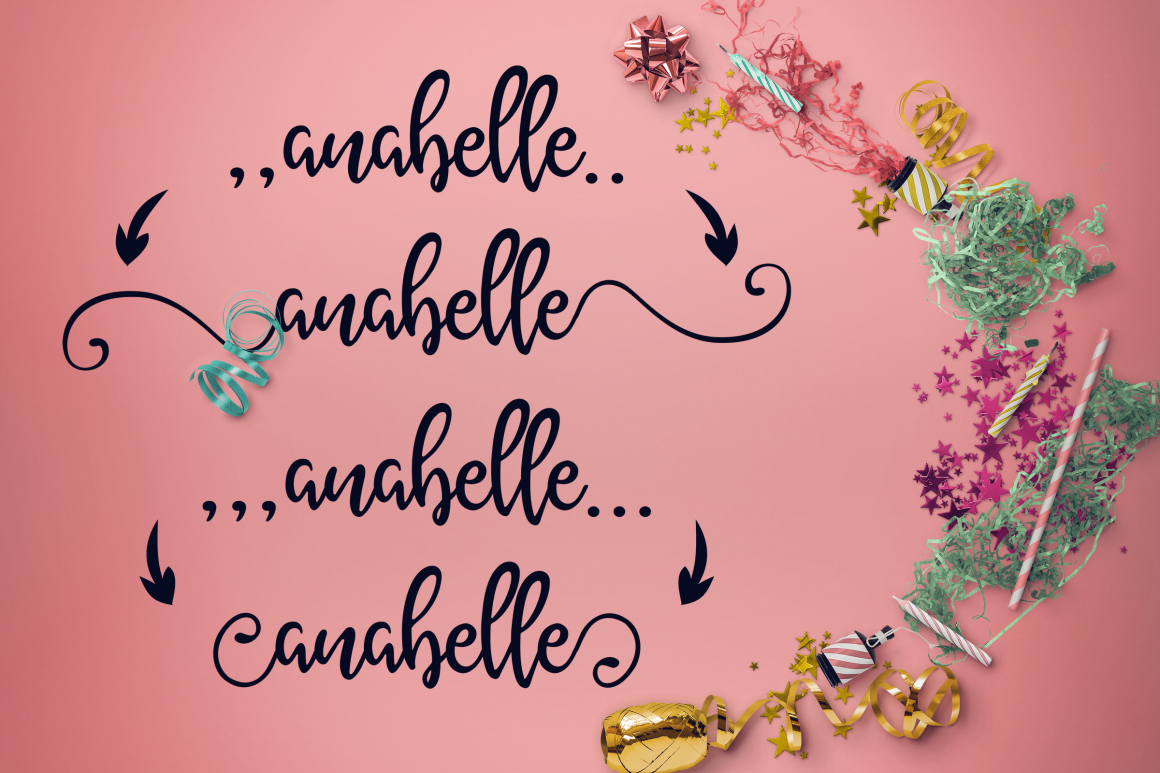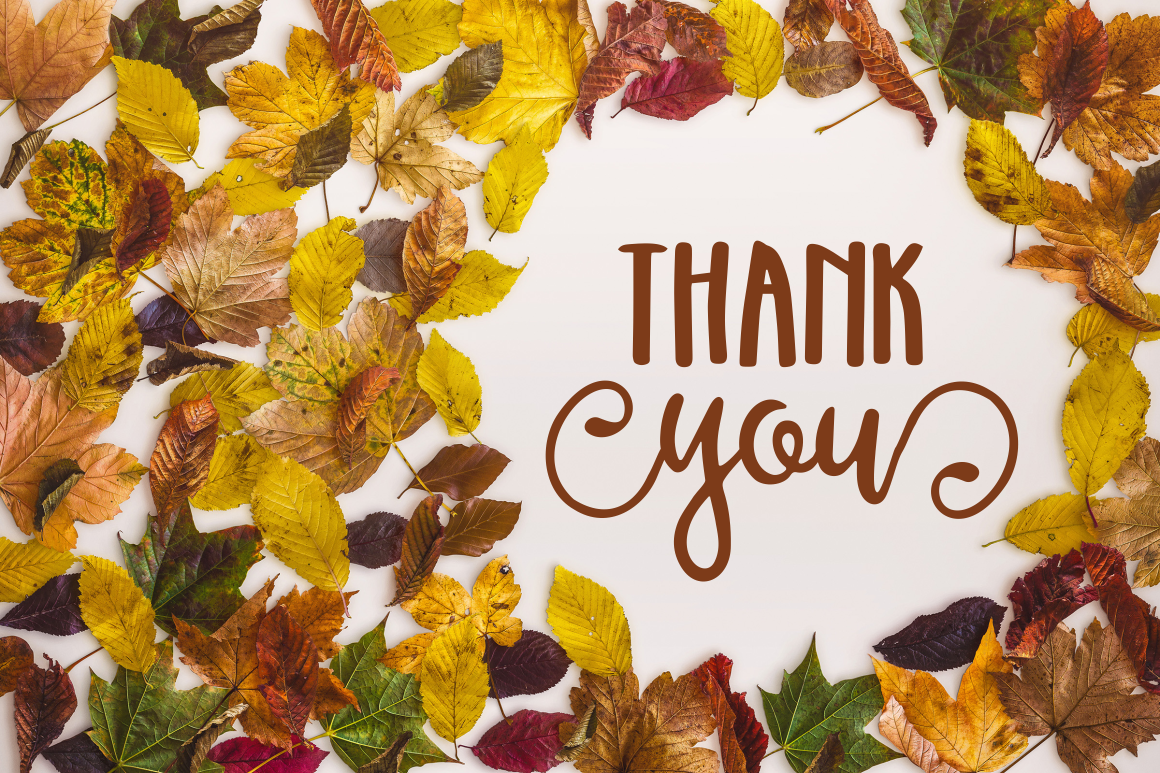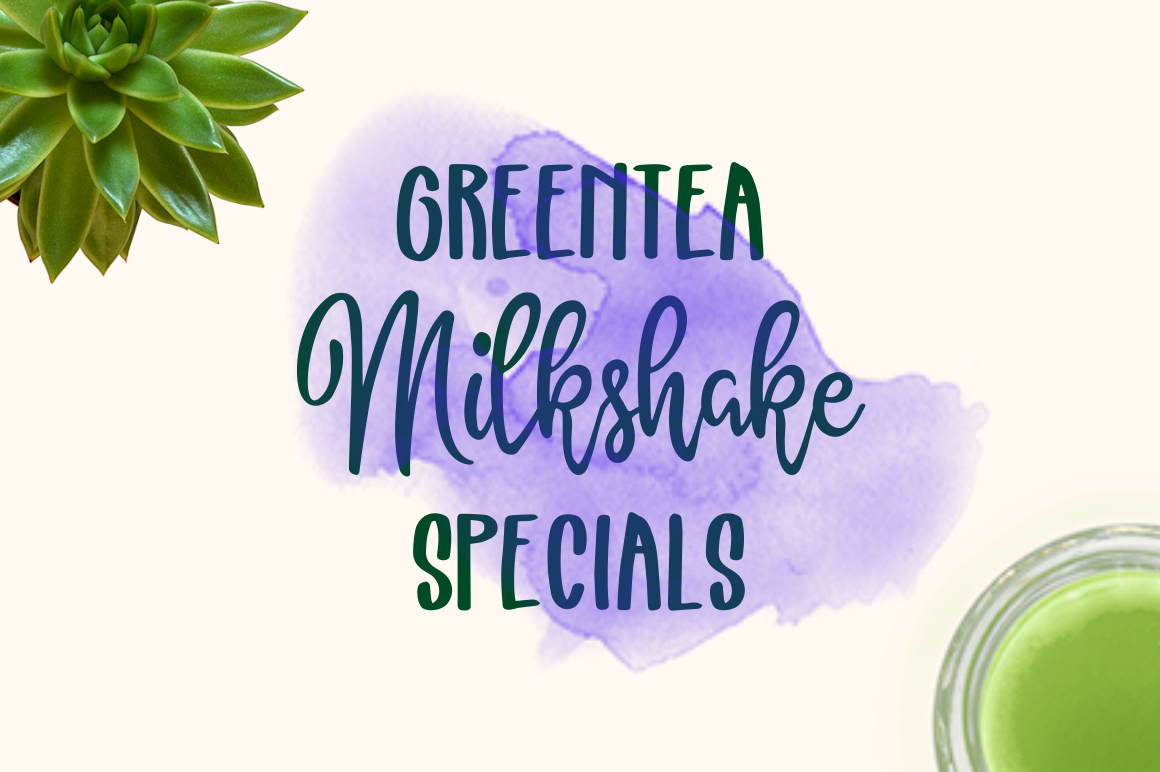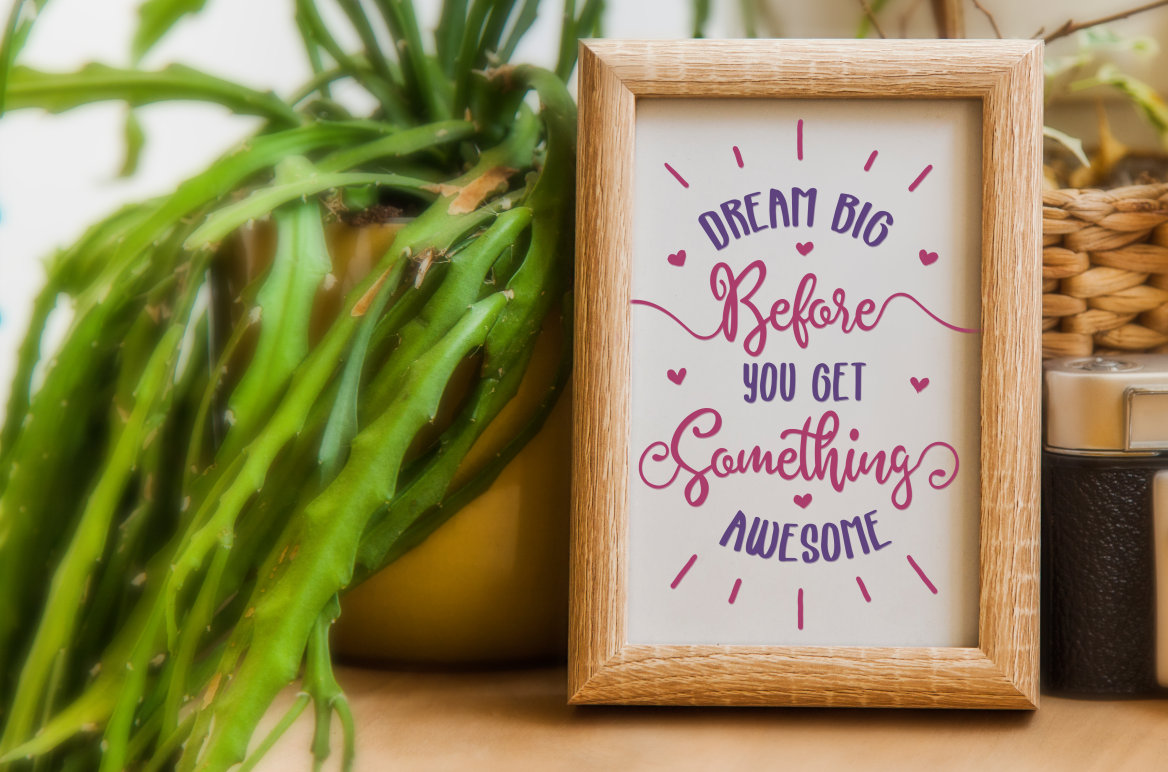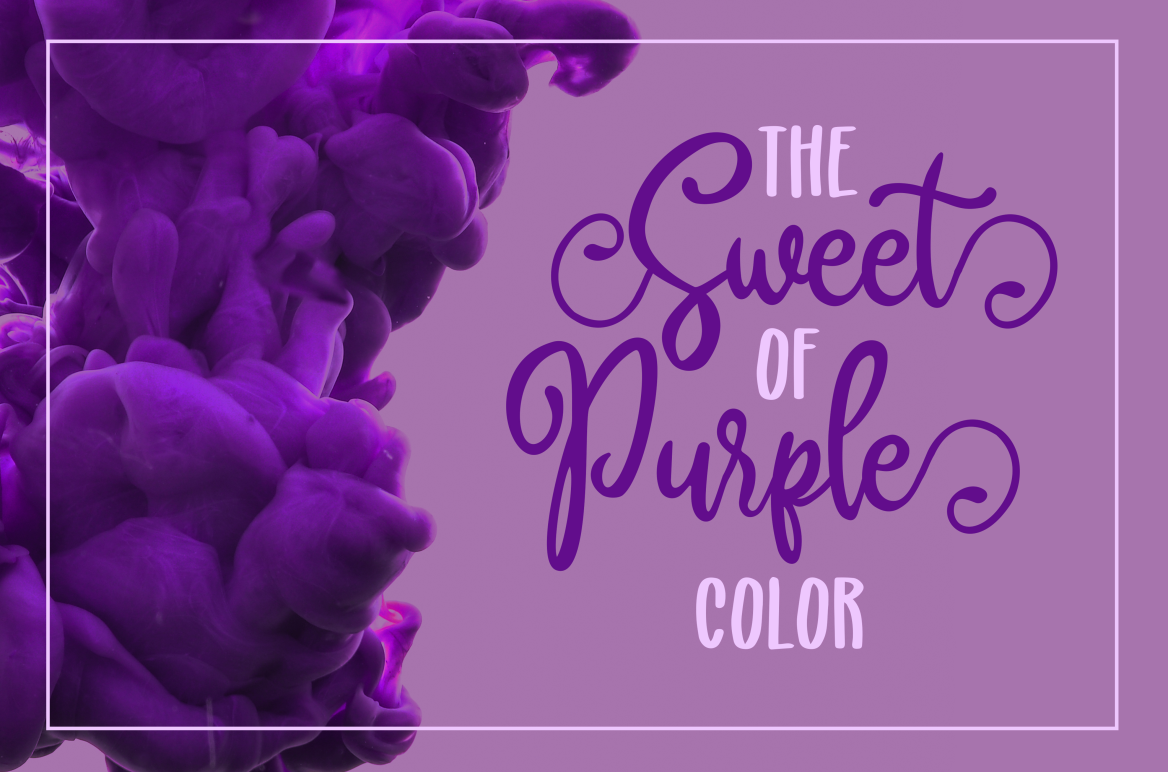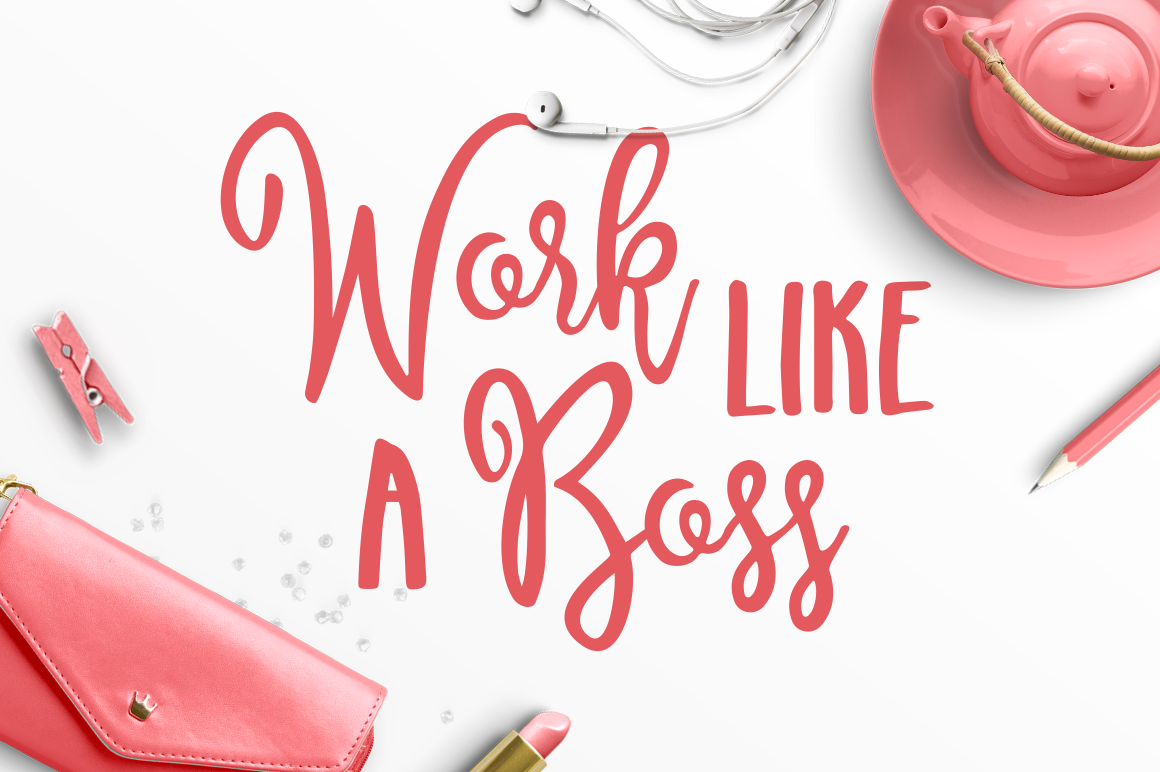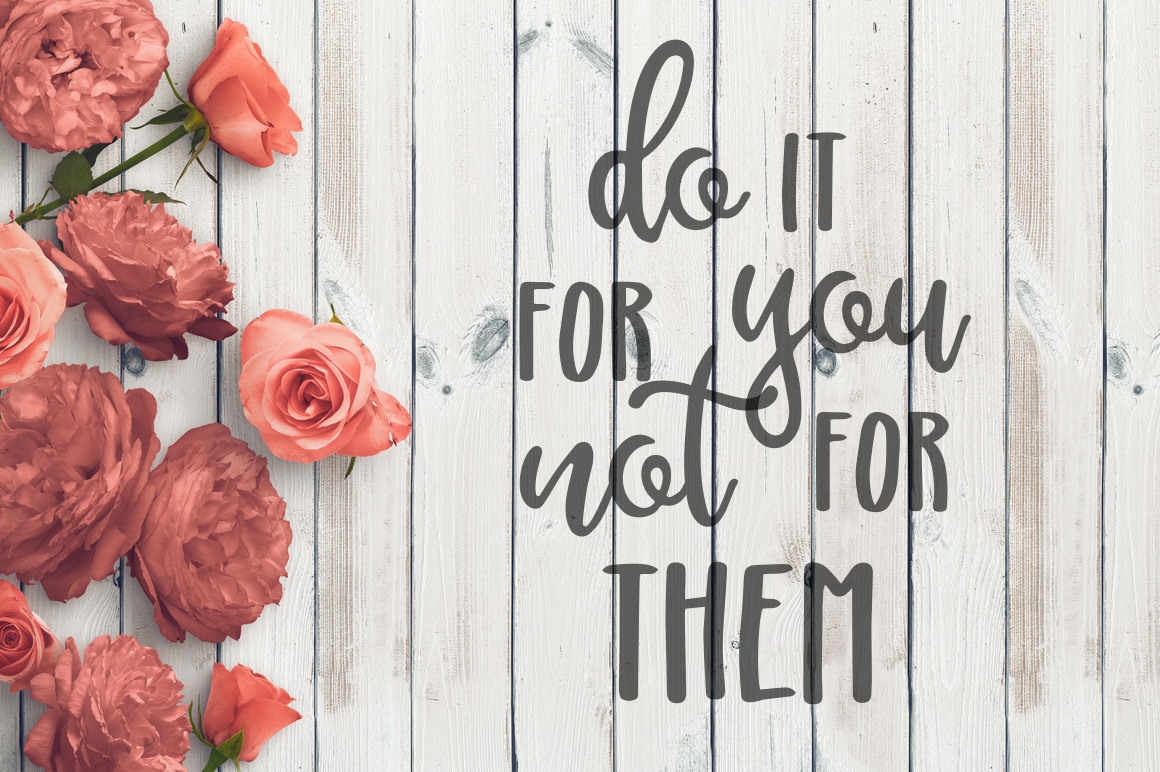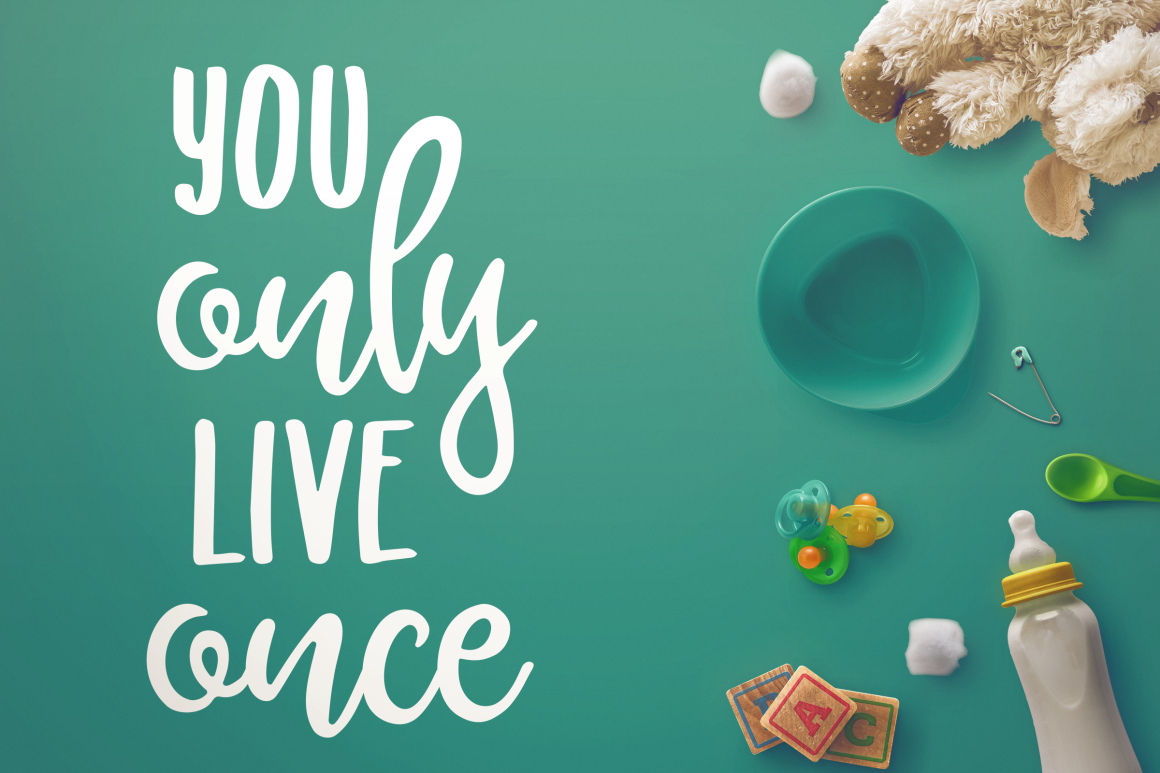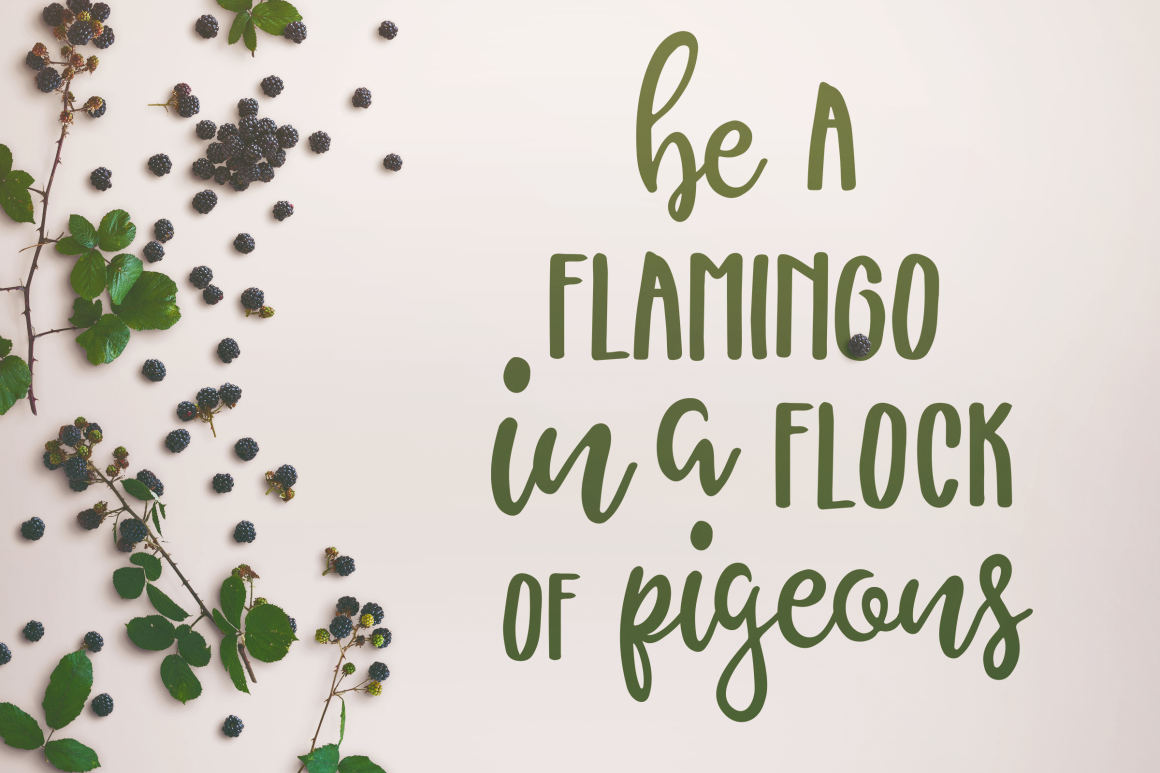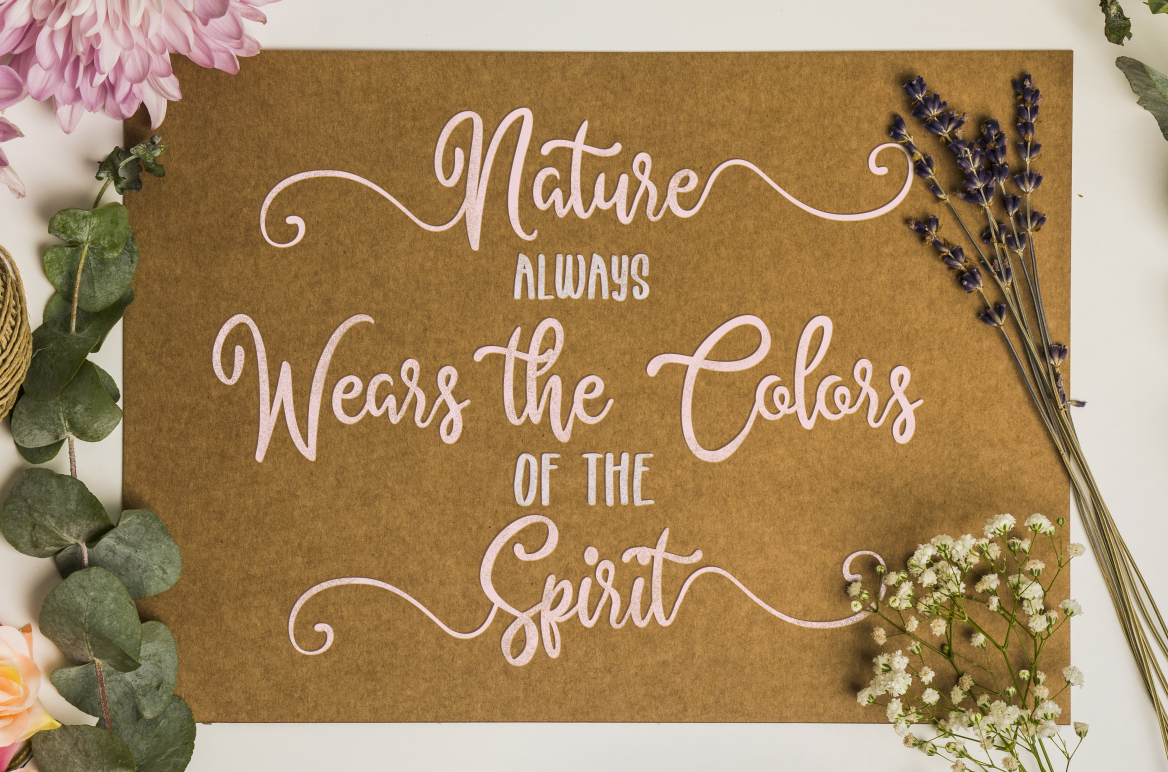
Alyssum Blossom Font
About Alyssum Blossom Font
Alyssum Blossom is a stunning font duo, created to perfectly complement the other. With a cursive styled script font and a sans serif script, this casual and fun pairing is perfectly suitable for a wide range of design ideas.